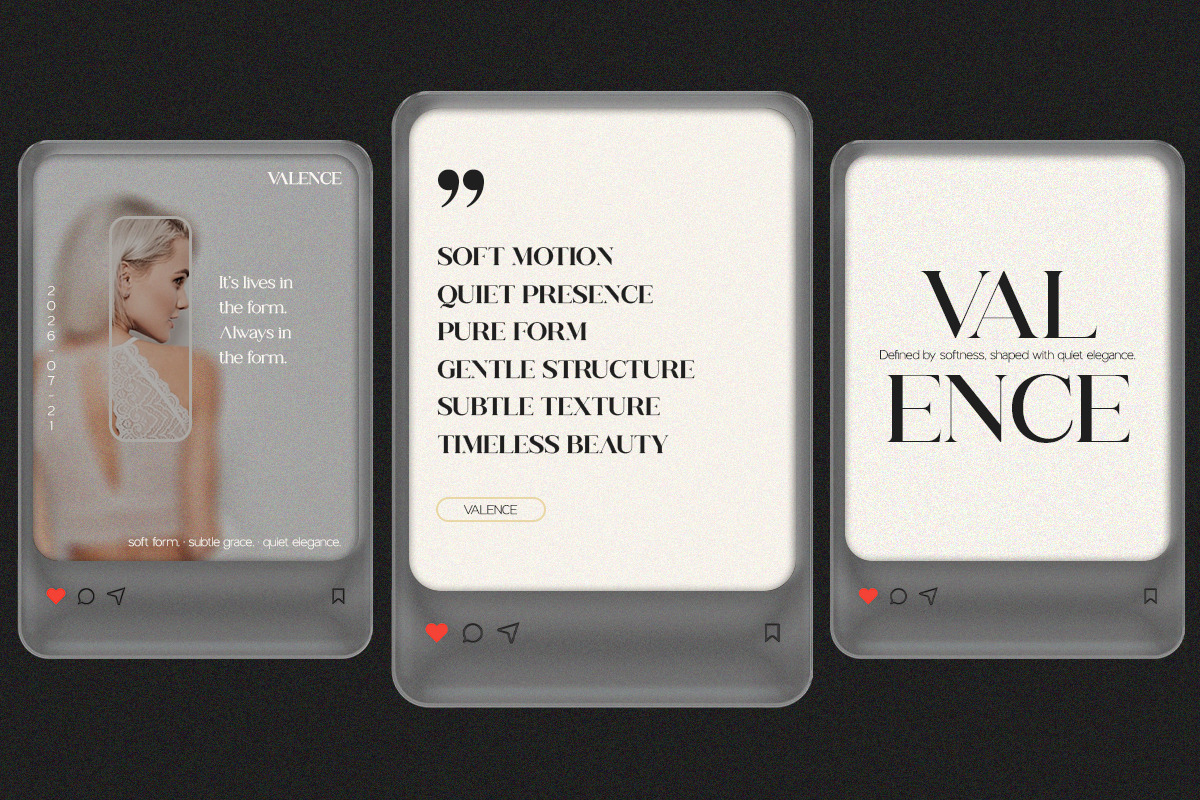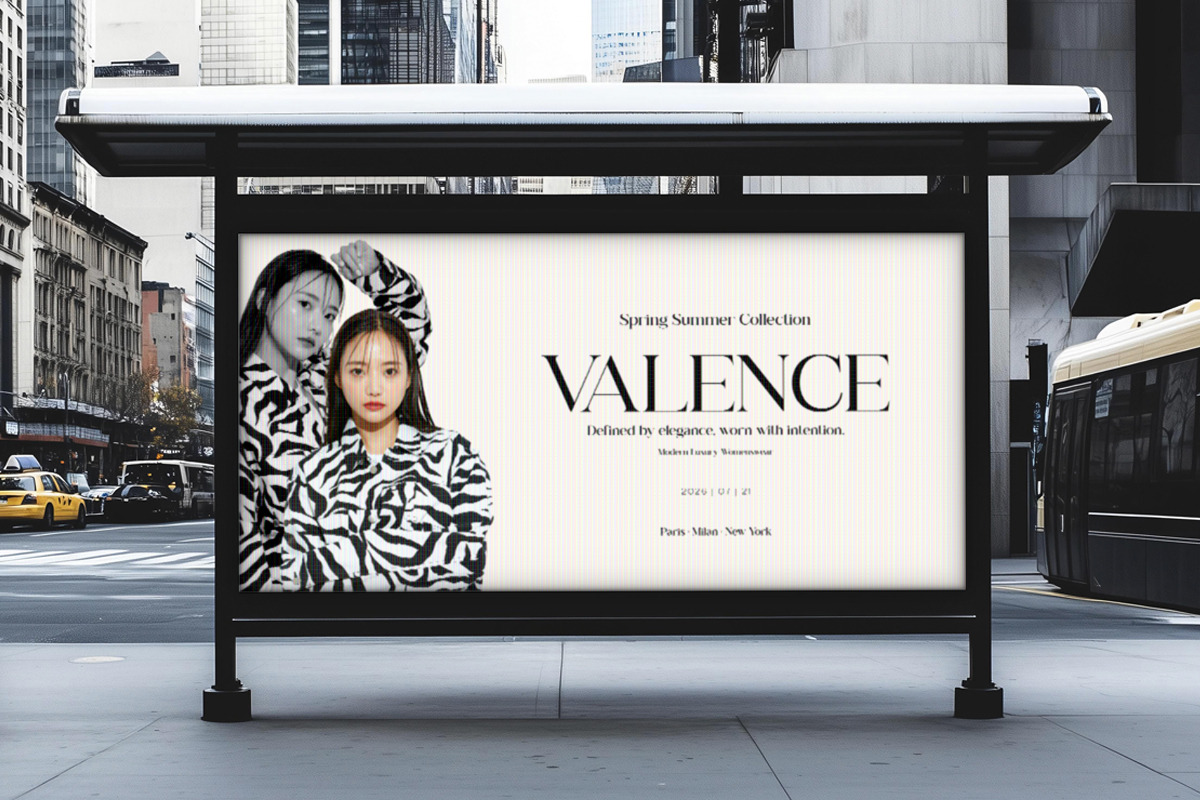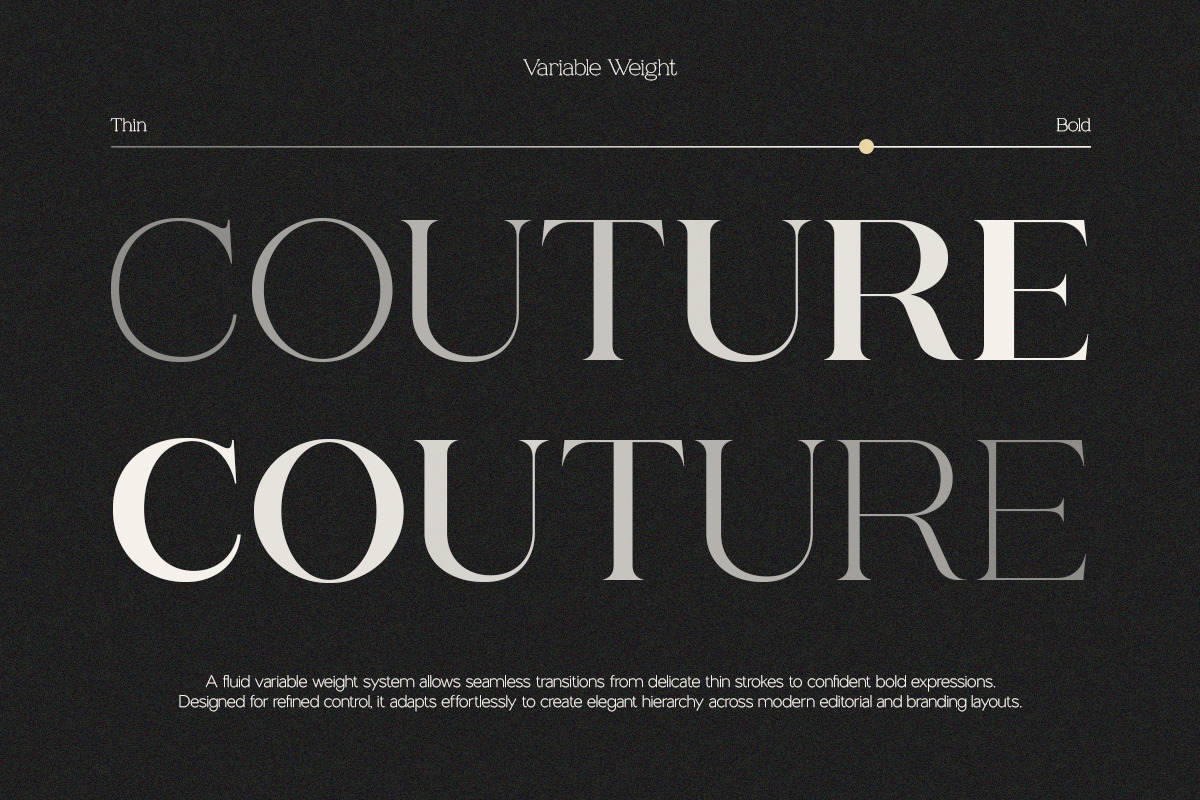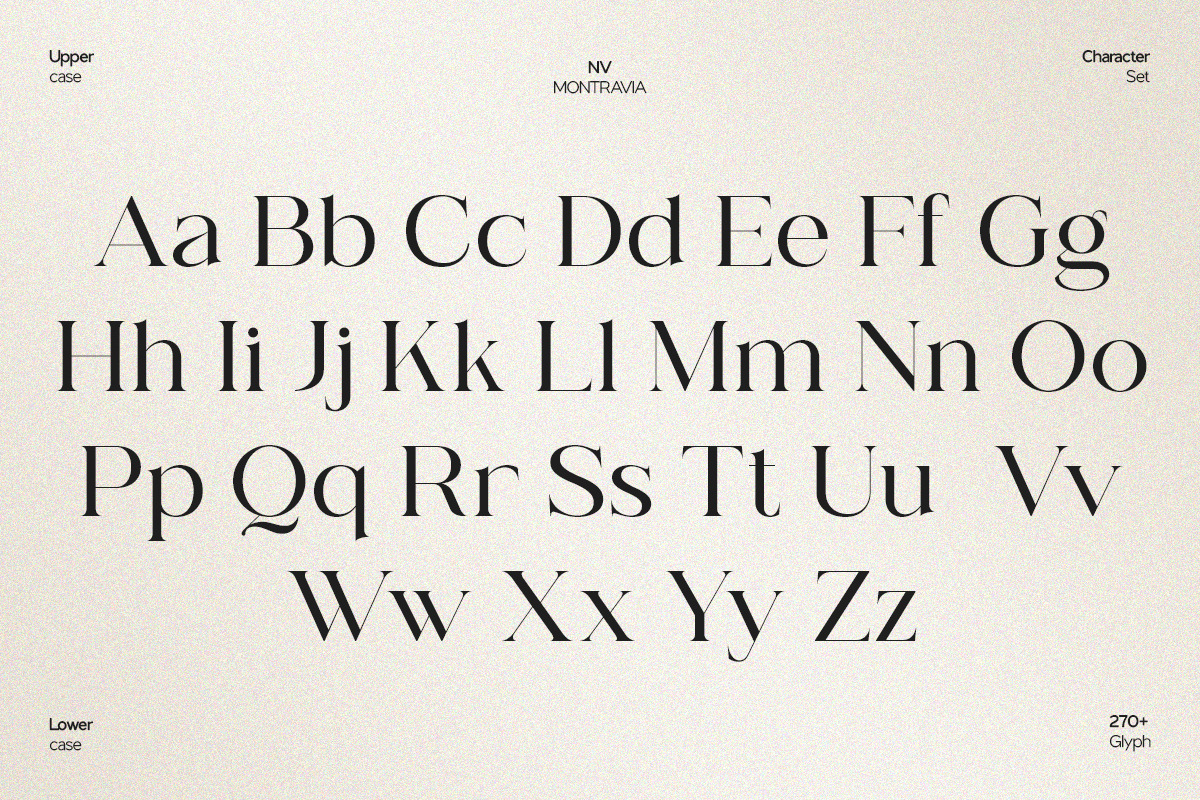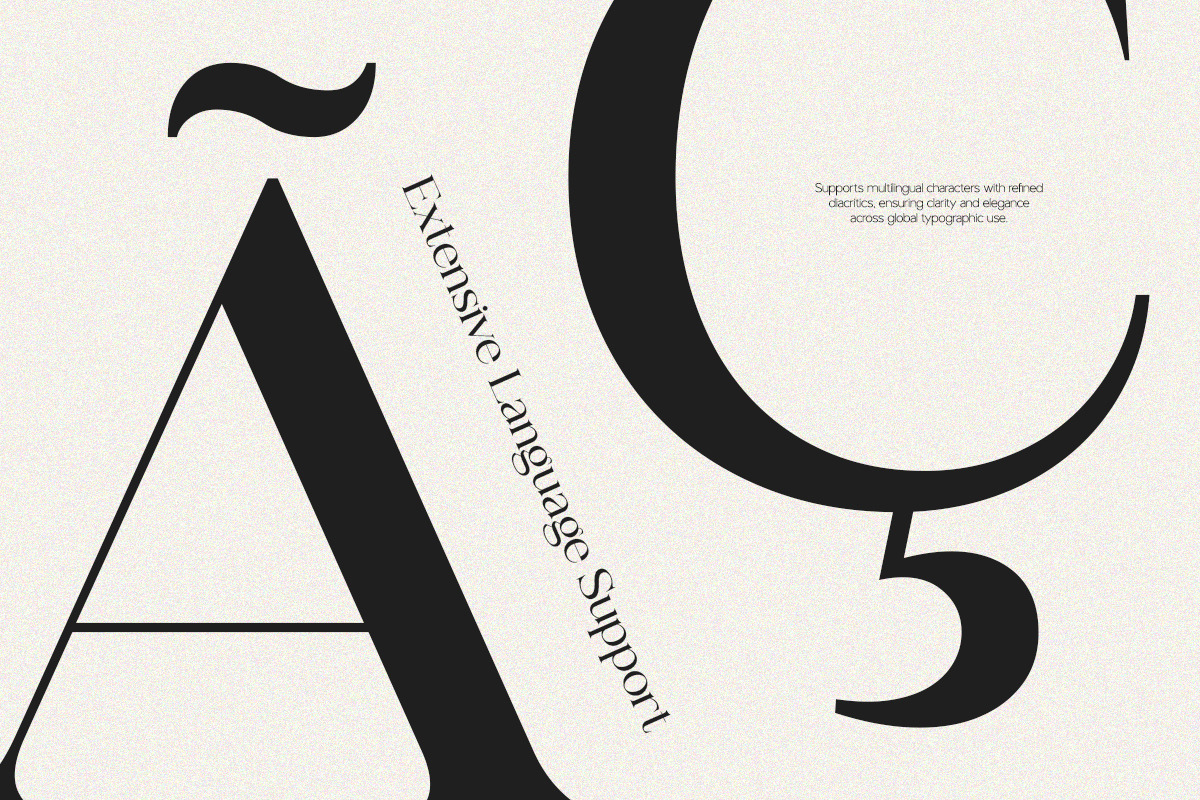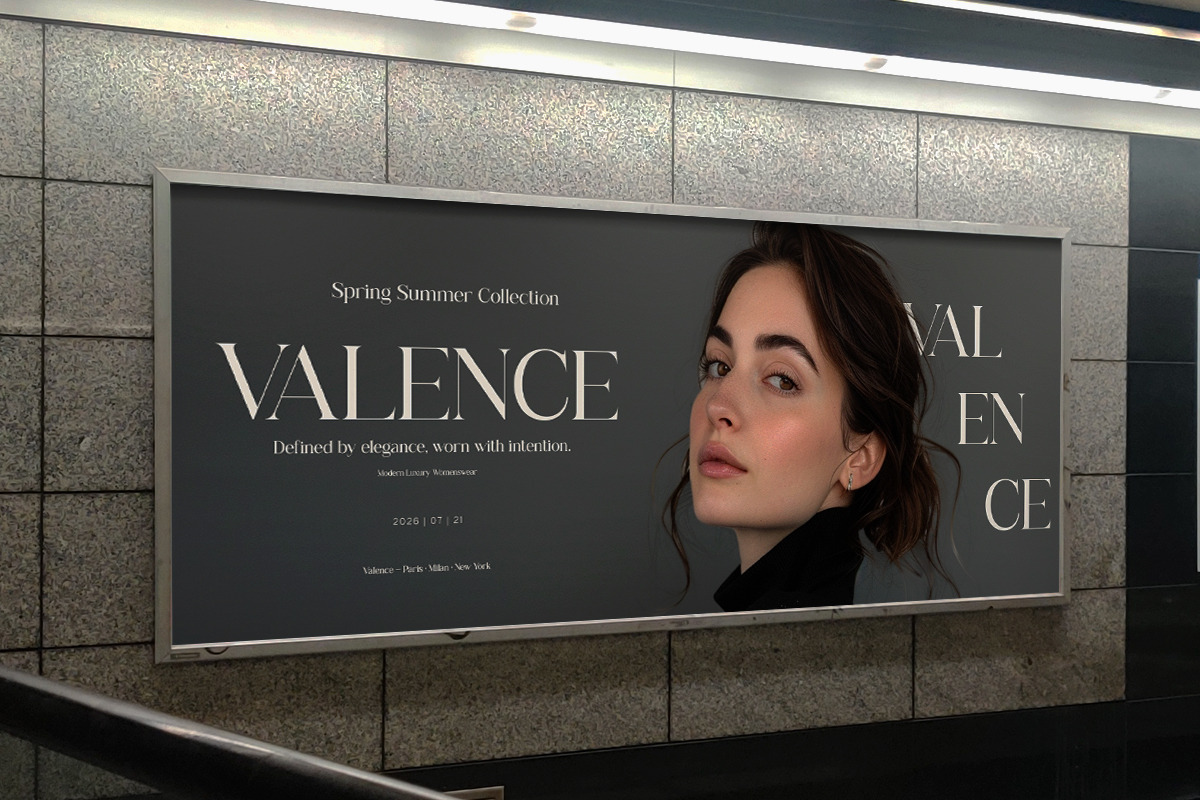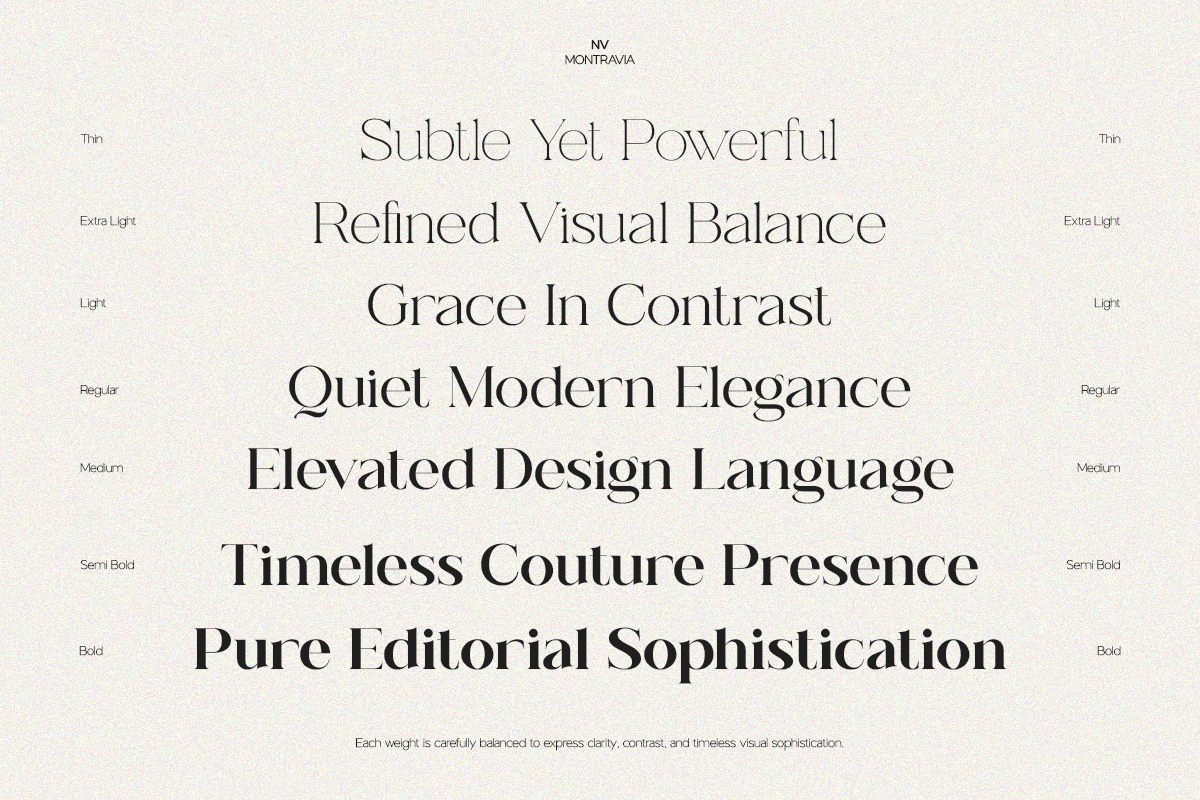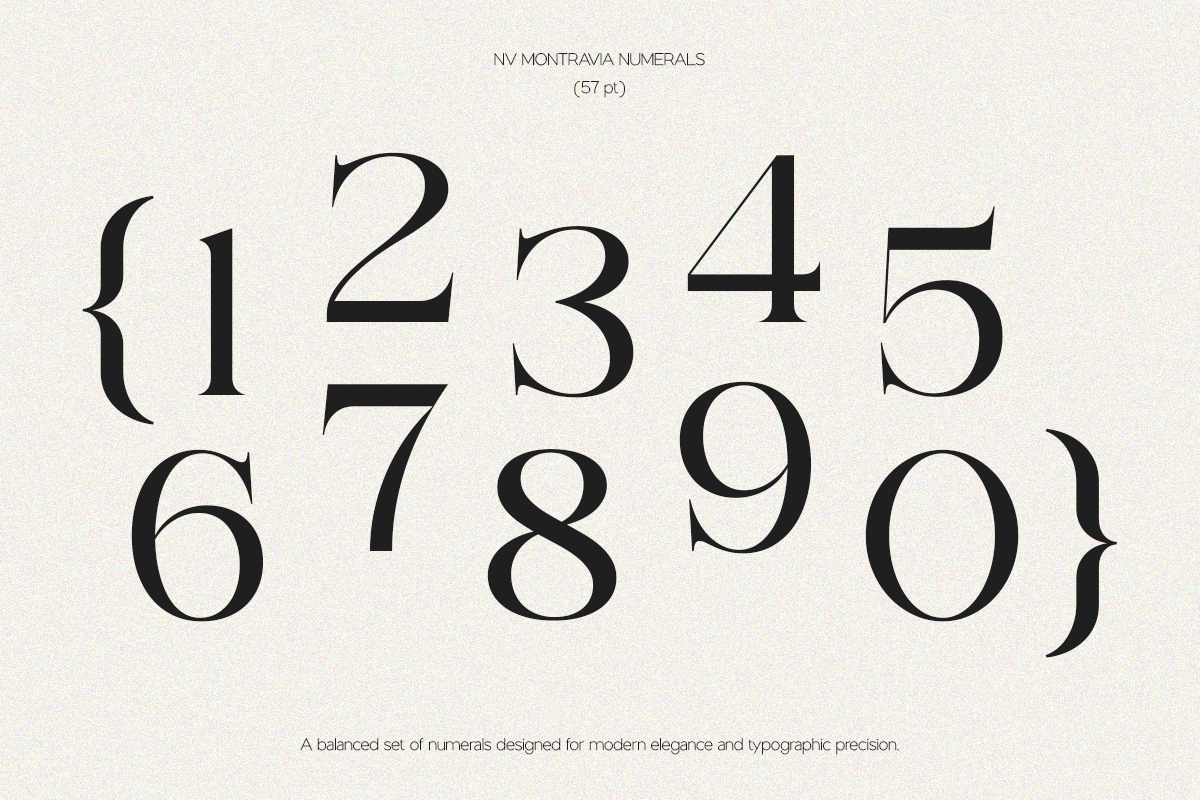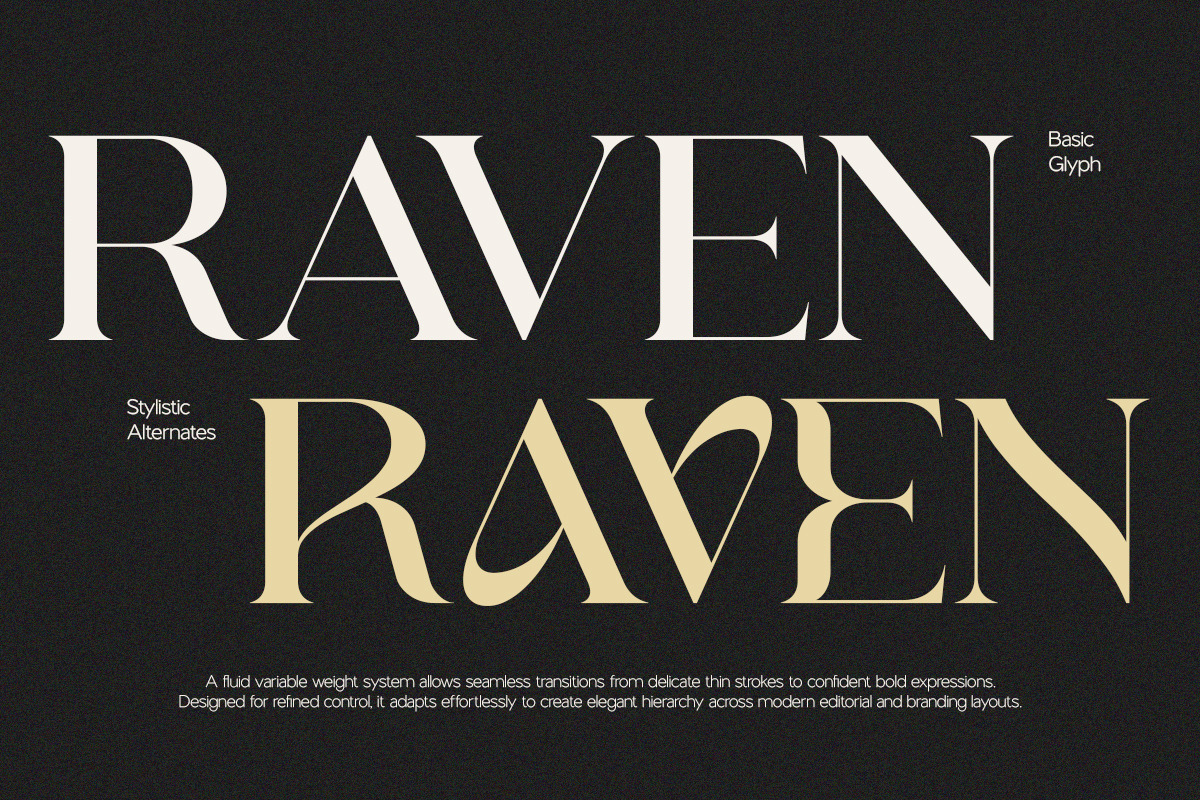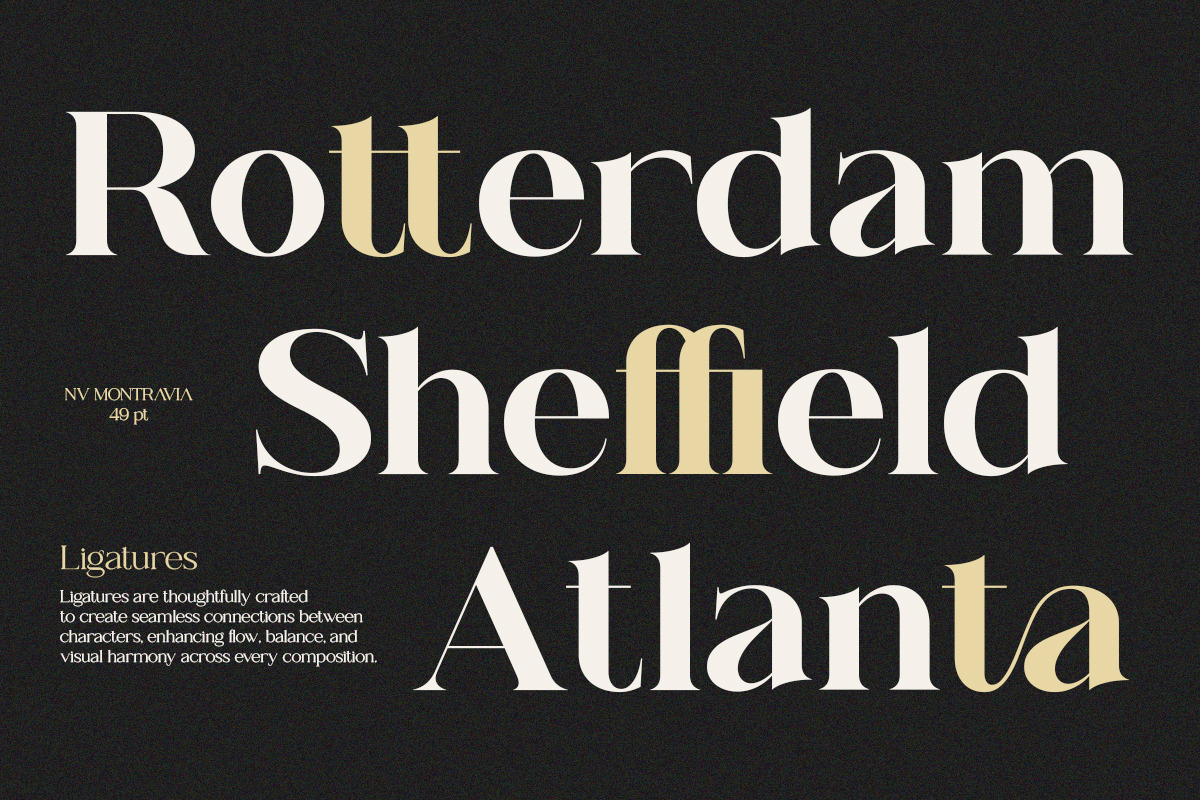
NV Montravia – Elegant Serif Font
NV MONTRAVIA Elegant Serif Font Family is a sophisticated serif type system designed to embody elegance, refinement, and timeless beauty. Developed by NovaraType, NV Montravia combines high-contrast strokes with graceful proportions—making it a perfect choice for luxury branding, fashion editorials, high-end packaging, and premium visual identities.
NV Montravia is carefully crafted to perform seamlessly across different weights and styles—from striking, elegant headlines to refined and readable body text. Its delicate details and balanced structure help create a strong visual presence while maintaining a sense of sophistication and modern appeal. Whether used in fashion campaigns, luxury branding, or editorial layouts, NV Montravia delivers a distinctive and premium typographic experience.
NV MONTRAVIA Elegant Serif Font Family Includes:
Multiple Weights
Serif Styles
Alternates & Ligatures
Accented Characters